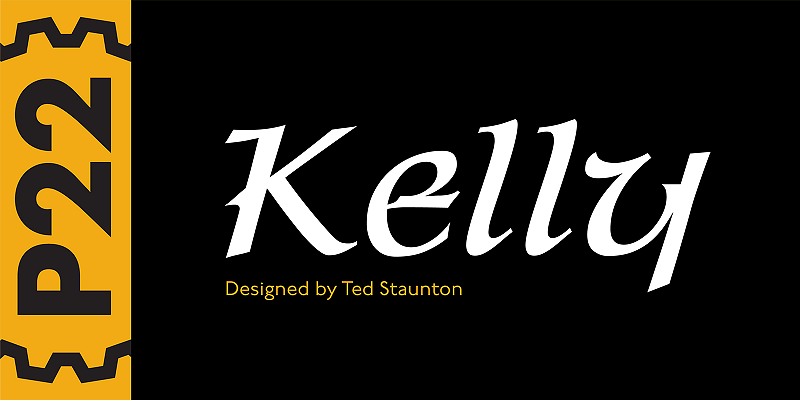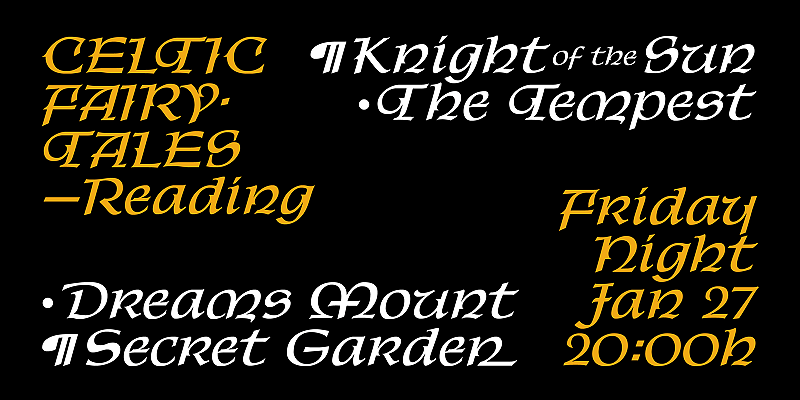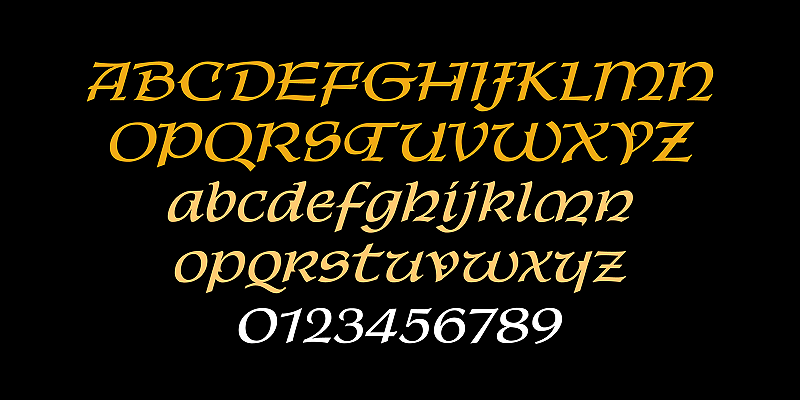
P22 Kelly is a Celtic-styled uncial font with a medieval gothic flavor and an overall contemporary feel. The font is an addition to Ted Staunton’s collection of historical and period-based fonts. It is ideal for uses that need to evoke the Celtic spirit or the medieval period.
Based on half-uncial Irish monastic handwriting of the 8th to 10th centuries, but instead of having a traditional upright stress, has an italic slant. Some Gothic influence is evident—like the thorn-like tick-marks decorating the capitals—but the rounded forms of h, m, n, u emphasize a wide, open, horizontal visual texture. The font is named in honor of the Book of Kells, the 8th-century masterpiece of Celtic calligraphic art, which is kept in Trinity College, Dublin.